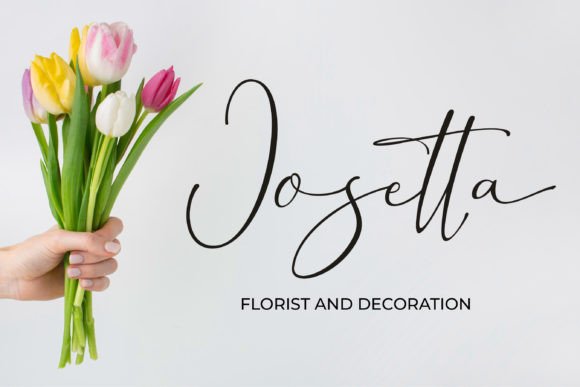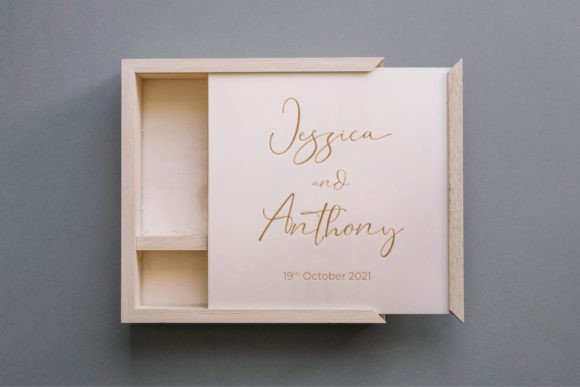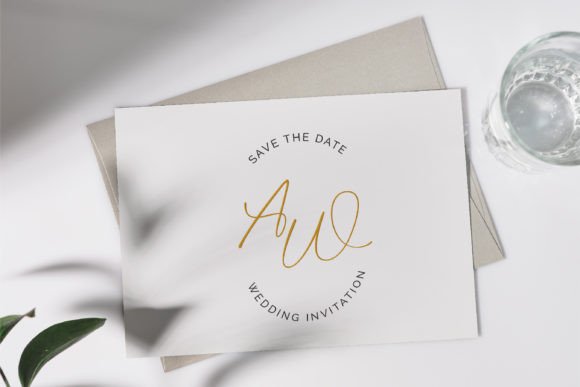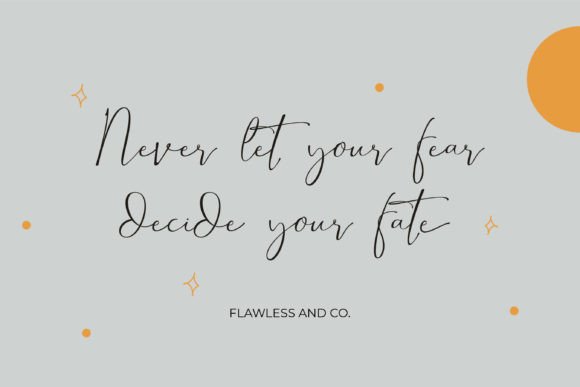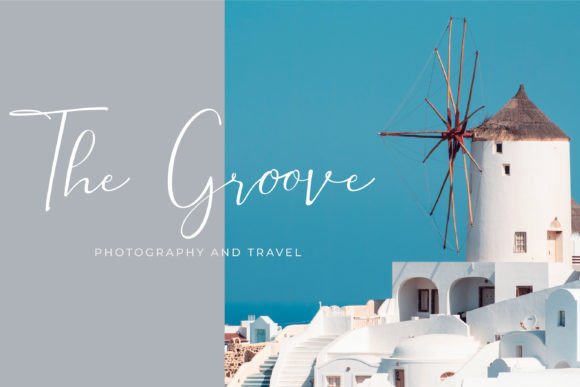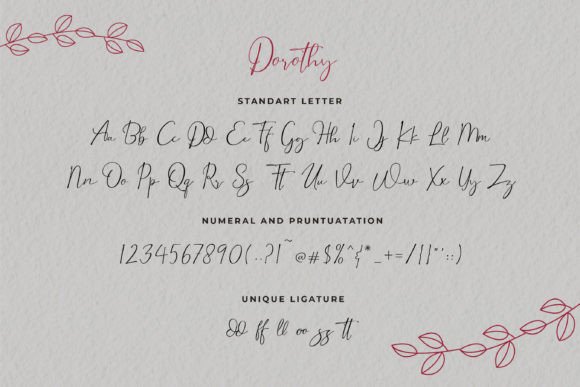
Dorothy Font: Elevate Your Designs with Elegance and Sophistication
In the world of typography, fonts play a crucial role in conveying the tone and personality of a design. For those seeking a modern and elegant script font, look no further than Dorothy. This stunning font is perfect for designs that require a personalized touch, such as wedding invitations, thank you cards, greeting cards, logos, and more. In this article, we’ll explore the beauty and versatility of the Dorothy font, and how it can elevate your designs to new heights.
What is Dorothy Font?
Dorothy is a modern script font that exudes elegance and sophistication. Its flowing lines and curves create a beautiful, handwritten look that’s perfect for a variety of design applications. Whether you’re a designer, crafter, or DIY enthusiast, Dorothy is an excellent choice for adding a personal touch to your projects.
Key Features of Dorothy Font
- Modern and Elegant: Dorothy’s sleek lines and curves give it a contemporary feel that’s perfect for modern designs.
- Script Style: This beautiful script font is ideal for creating personalized designs that require a touch of elegance.
- Versatile: Dorothy can be used for a wide range of design applications, from wedding invitations to logos and branding materials.
- Easy to Read: Despite its elegant appearance, Dorothy is easy to read, making it perfect for designs that require a clear and concise message.
Uses for Dorothy Font
Dorothy’s versatility makes it an excellent choice for a variety of design projects. Here are some ideas to get you started:
- Wedding Invitations: Add a touch of elegance to your wedding invitations with Dorothy. Its beautiful script style creates a romantic and sophisticated look that’s perfect for the big day.
- Thank You Cards: Express your gratitude with style using Dorothy. This font is perfect for creating heartfelt thank you cards that will leave a lasting impression.
- Greeting Cards: Whether it’s a birthday, anniversary, or holiday, Dorothy is an excellent choice for creating greeting cards that are both personal and elegant.
- Logos and Branding: Use Dorothy to create a unique and memorable logo for your business or brand. Its modern and elegant style is sure to make your brand stand out.
Tips for Using Dorothy Font
To get the most out of Dorothy, here are some tips to keep in mind:
- Pair with Other Fonts: Experiment with pairing Dorothy with other fonts to create a unique and visually appealing design.
- Use for Headlines and Titles: Dorothy is perfect for headlines and titles, where its elegant style can really shine.